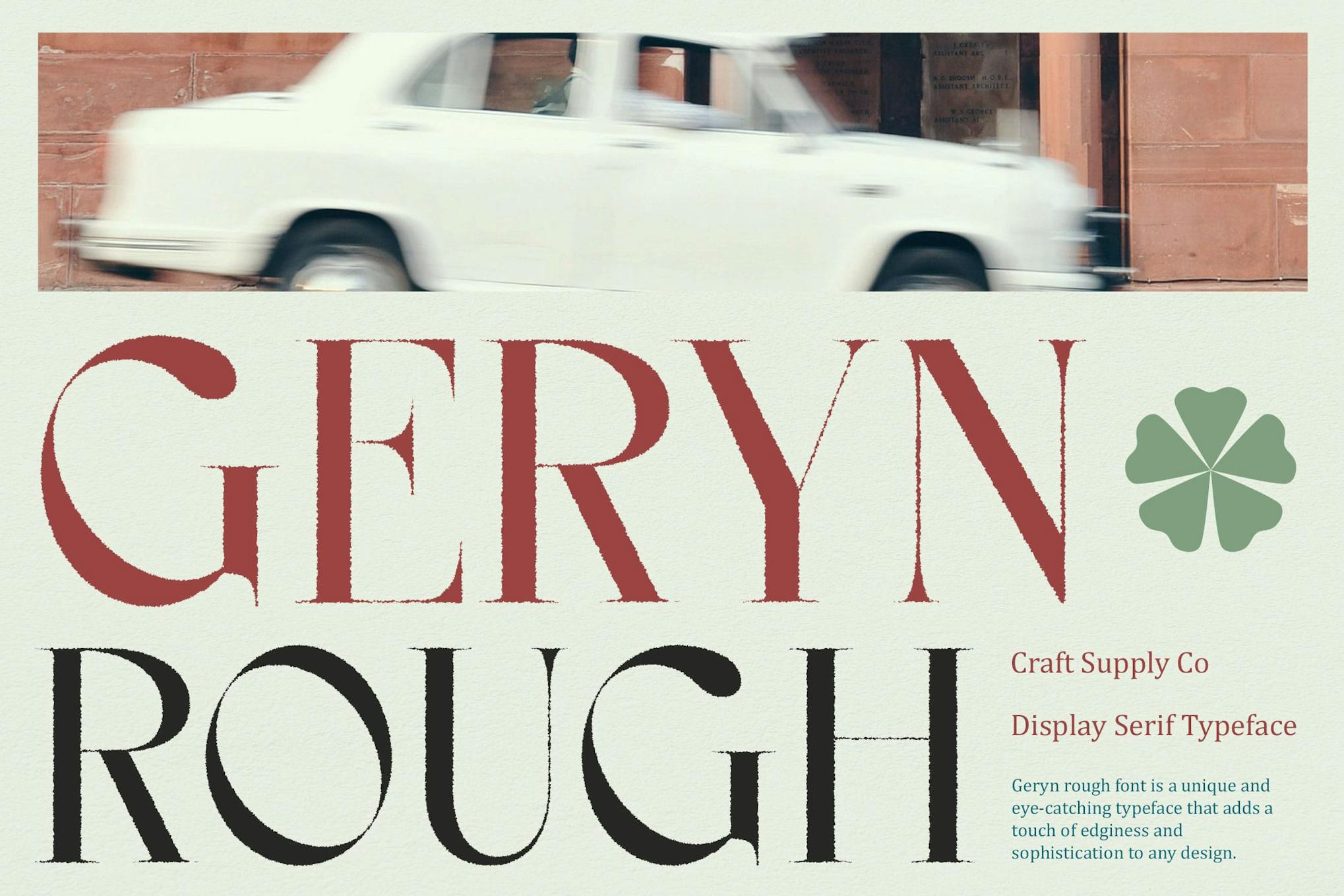
Geryn Rough Font
Geryn Rough Font is ideal for vintage branding projects, distressed logo design, rustic packaging applications, weathered signage systems, grunge poster art, industrial typography, retro merchandise graphics, aged document recreation, and authentic textured design elements.
What makes Geryn Rough Font exciting is its authentic weathered character that perfectly captures the natural aging process and organic wear patterns of traditional printing methods. This compelling typeface features realistic erosion effects, irregular edges, and natural distressing that tells a story of time and craftsmanship. The font's rugged charm and handcrafted imperfections create visual depth and tactile quality that instantly transforms contemporary designs into convincingly aged masterpieces, making it perfect for brands seeking to communicate heritage, authenticity, and timeless craftsmanship.
Geryn Rough Font family includes multiple distressing variations: Light Rough, Medium Rough, Heavy Rough, Grunge, Weathered, and Clean Base versions. Each style maintains the core character design while offering different degrees of aging intensity and texture effects, allowing designers to customize the vintage aesthetic to match their project's specific mood and authenticity requirements.
The Geryn Rough Font Free Download delivers premium distressed typography that eliminates the need for additional aging effects or texture overlays. This font excels in artisanal brands, craft industries, heritage organizations, and vintage-inspired companies where authentic character and historical appeal enhance brand storytelling and emotional connection. The realistic wear patterns create instant credibility and nostalgic resonance.
Creative professionals choose Geryn Rough Font for its ability to convey history and authenticity through typography alone. The varied distressing across individual letters creates natural rhythm and prevents repetitive patterns that might reveal digital origins. Its robust construction ensures excellent readability despite heavy texturing effects and weathered appearance.
The comprehensive character set includes vintage-style symbols, decorative elements, and extensive multilingual support that enhances the rough aesthetic. Geryn Rough Font Free Download enables designers to experiment with layering techniques, color applications, and creative weathered combinations before purchasing.
Whether used for heritage brand development or contemporary vintage-inspired campaigns, Geryn Rough Font consistently delivers authentic distressed typography that resonates with audiences seeking genuine craftsmanship, historical character, and the timeless appeal of naturally aged design elements.